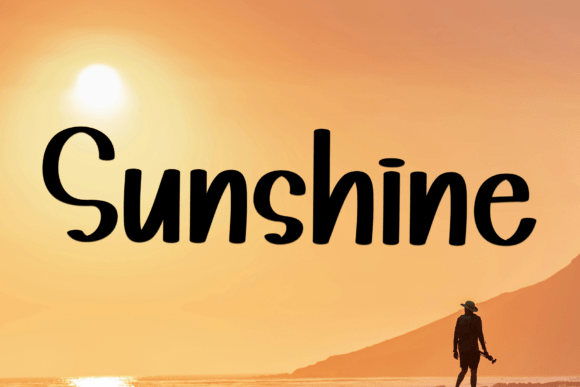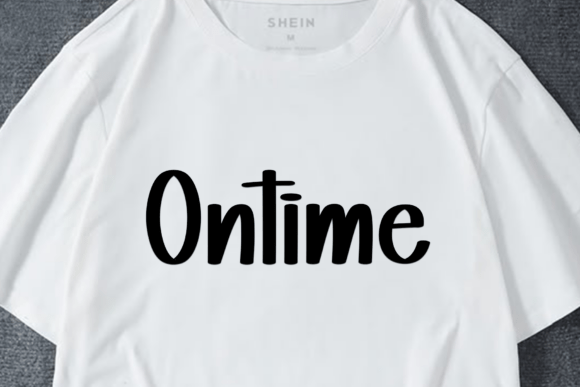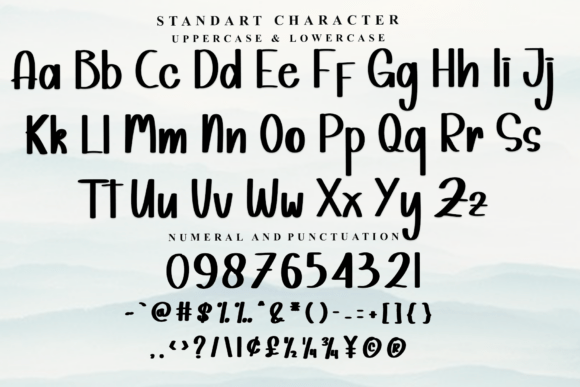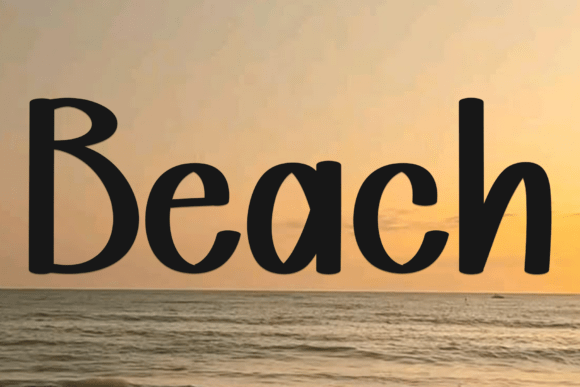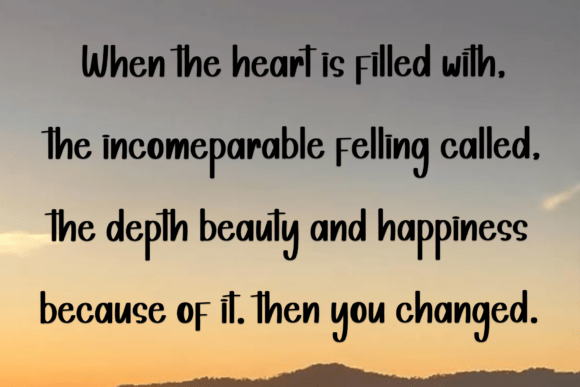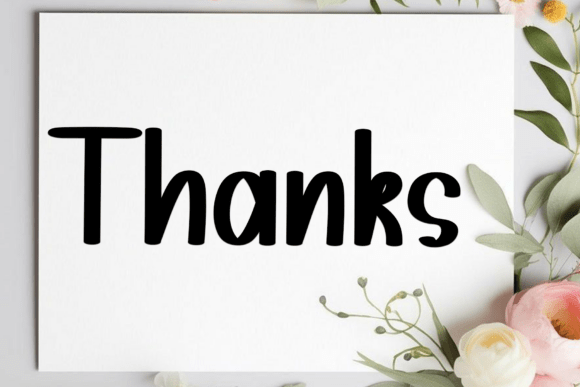
Introduction to Smiling Teacher Font
Smiling Teacher is a beautiful and eye-catching font designed with a soft, unique touch.
Its distinctive strokes give it a special character, making it meaningful and versatile for future use With various characters, itโs perfect for design projects, crafts, and other creative works.
Key Features of Smiling Teacher Font
Why Choose Smiling Teacher Font?